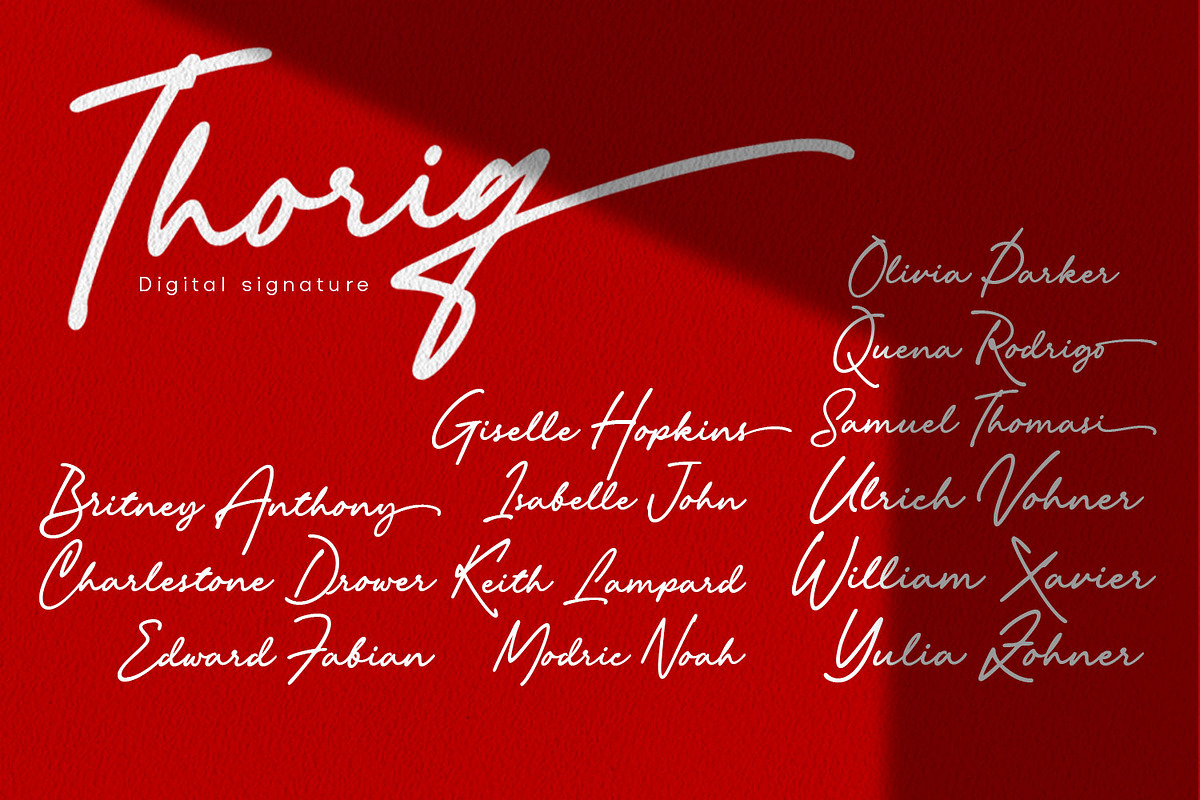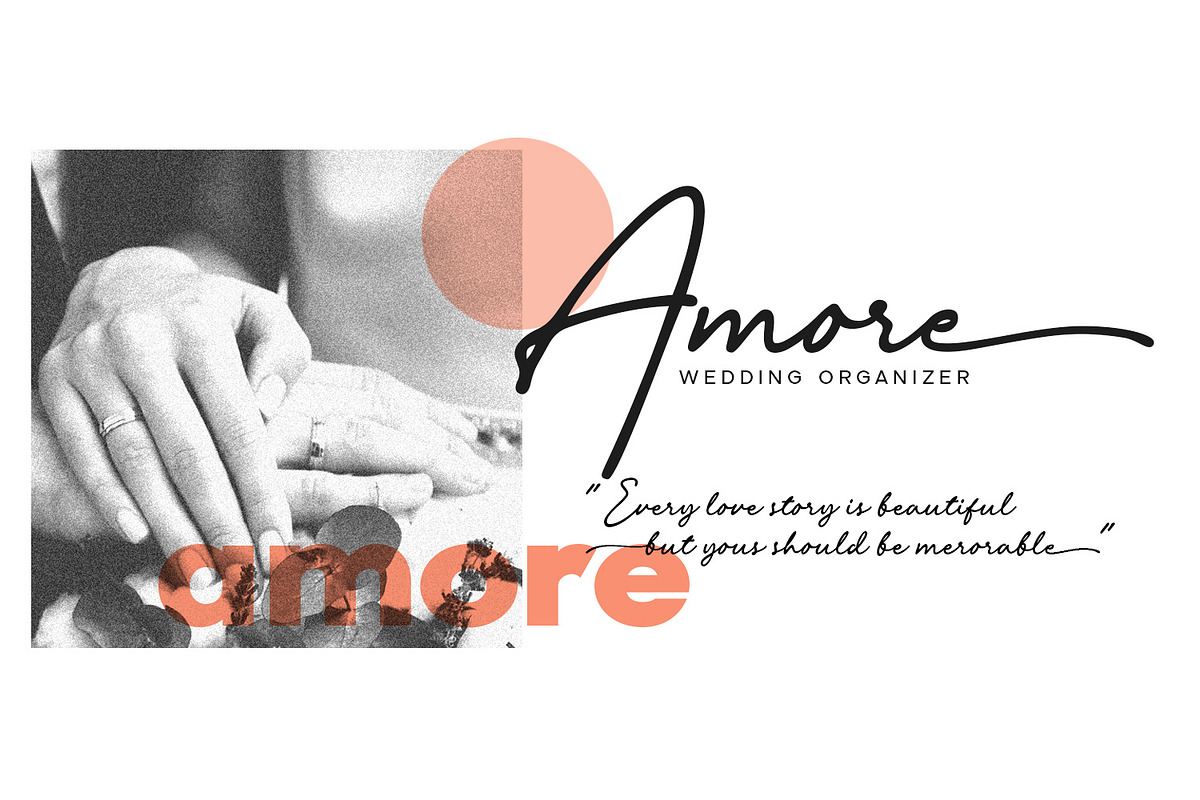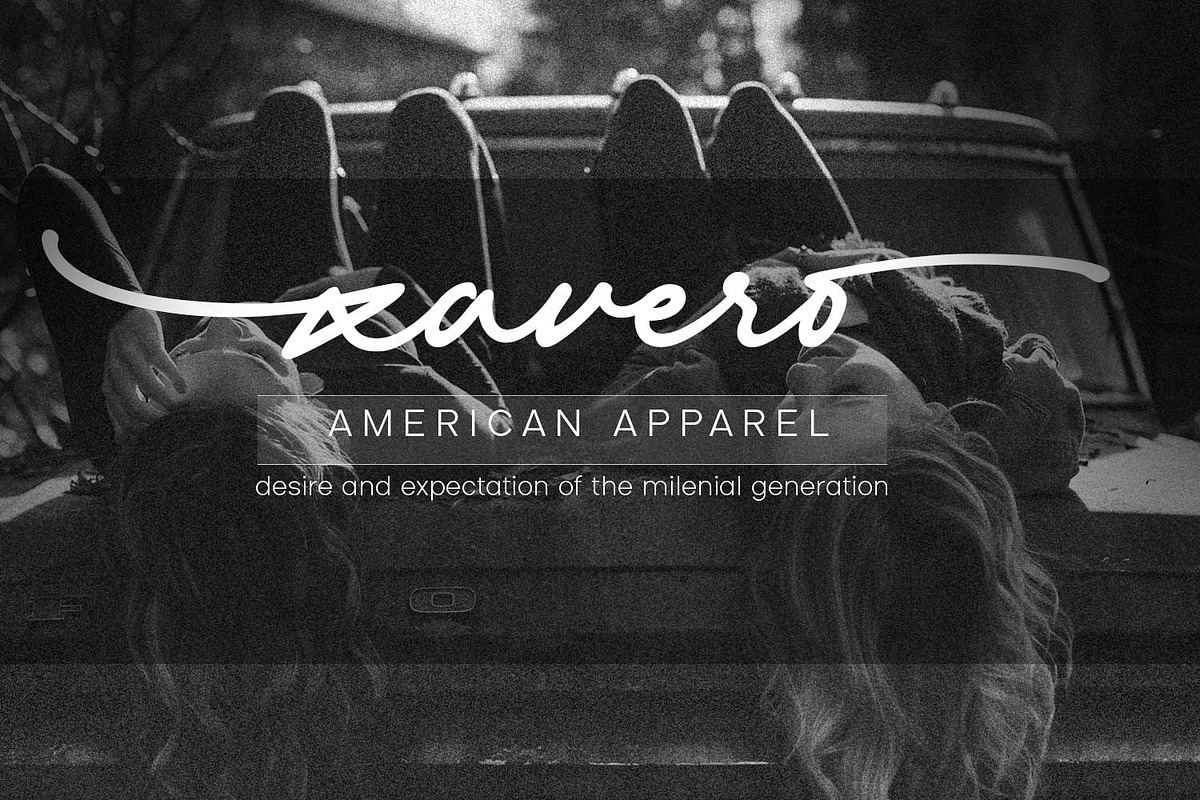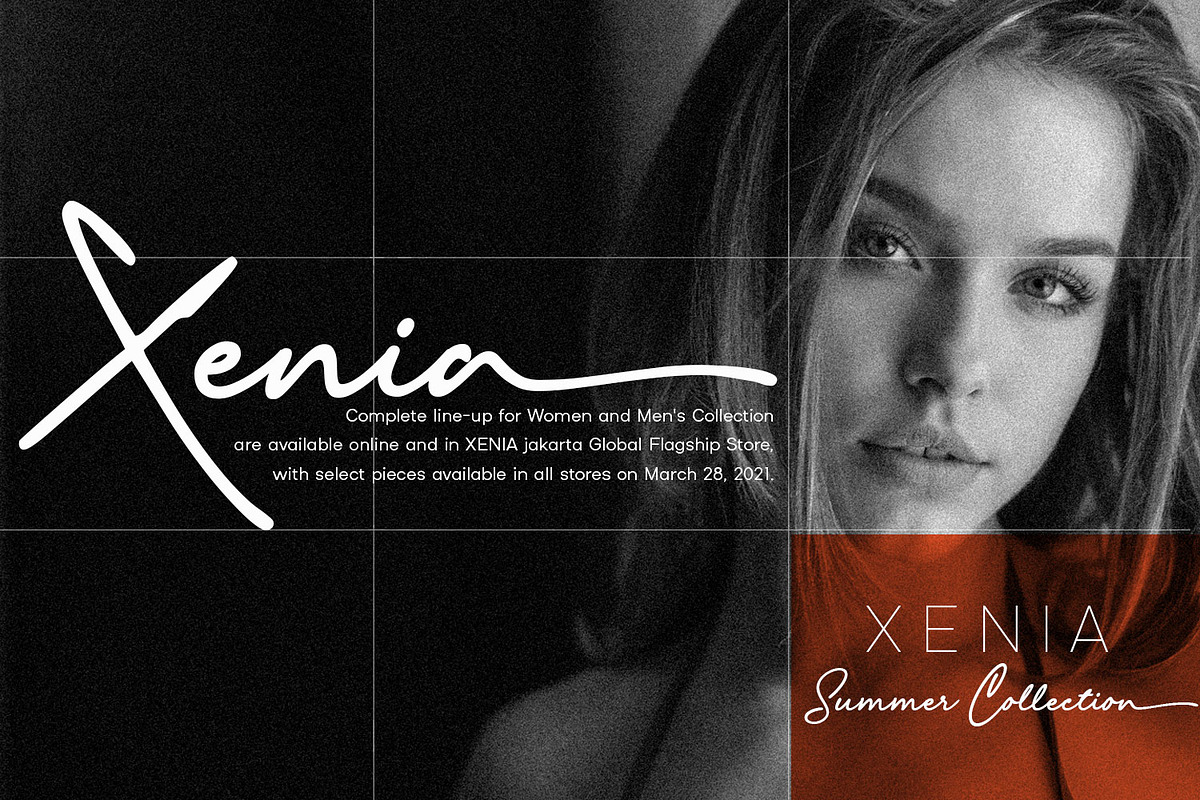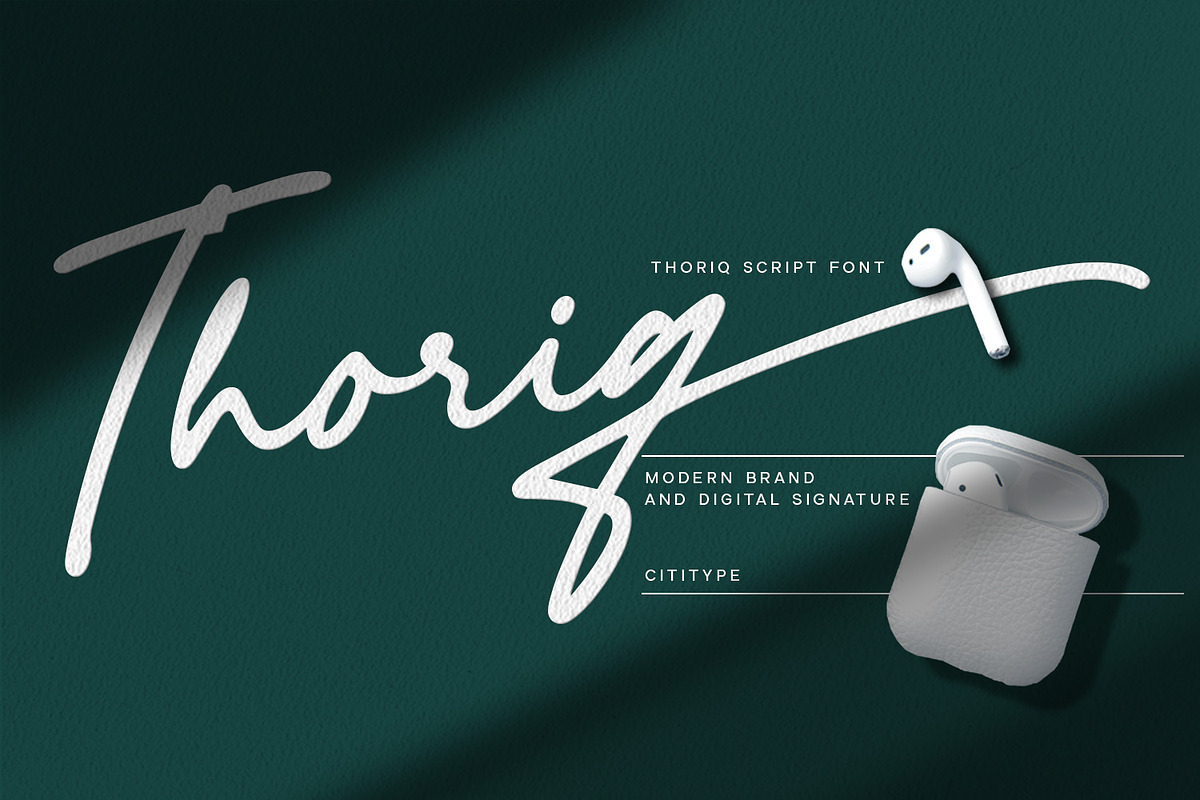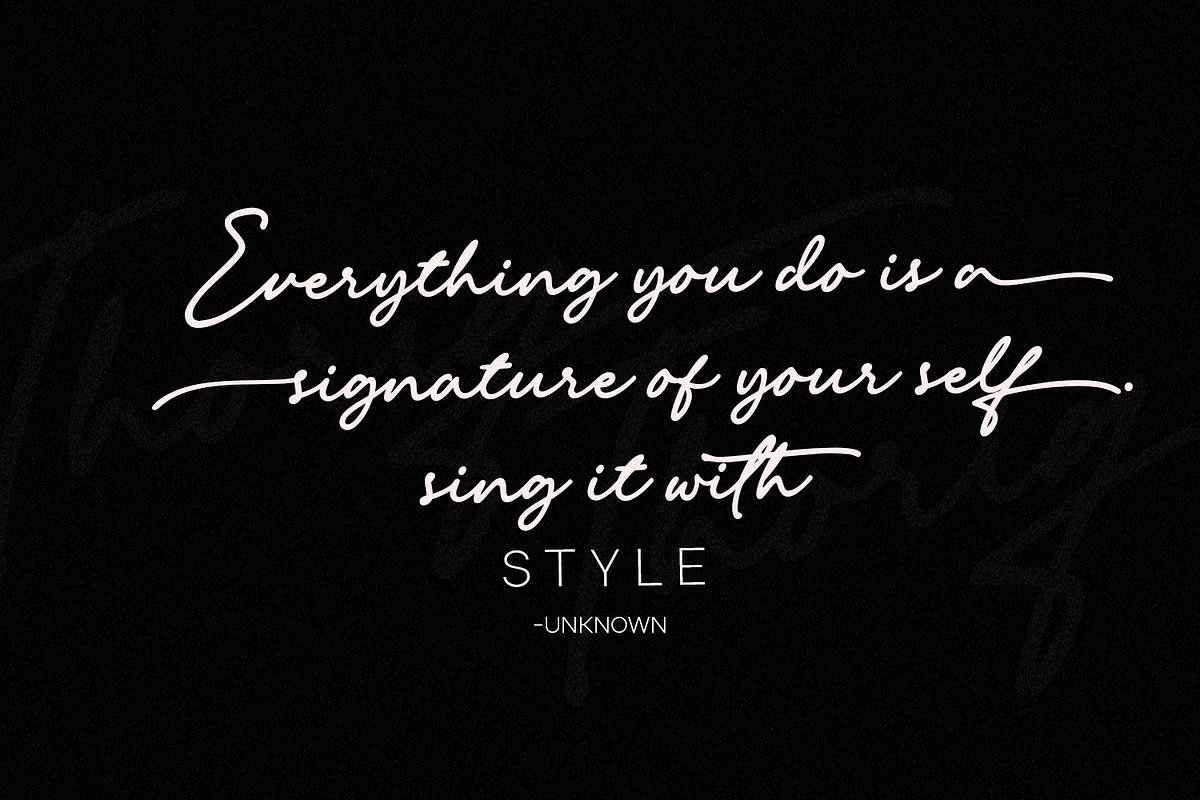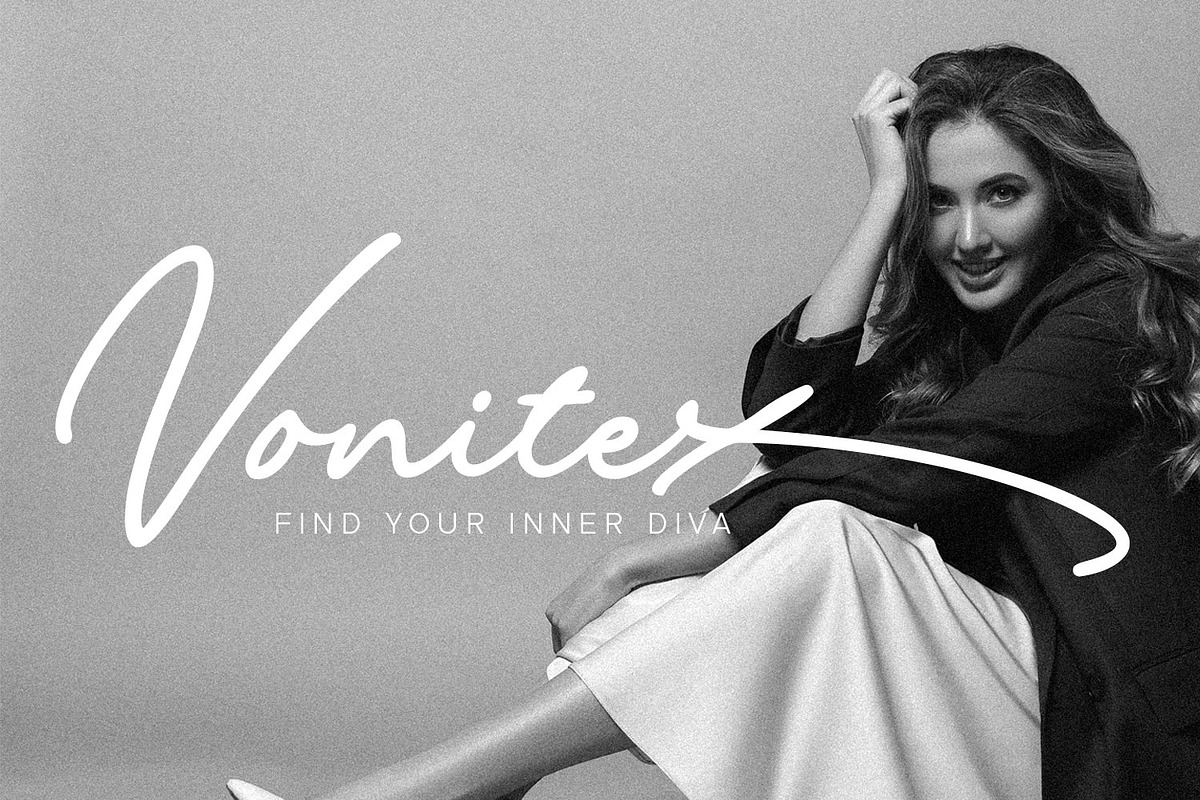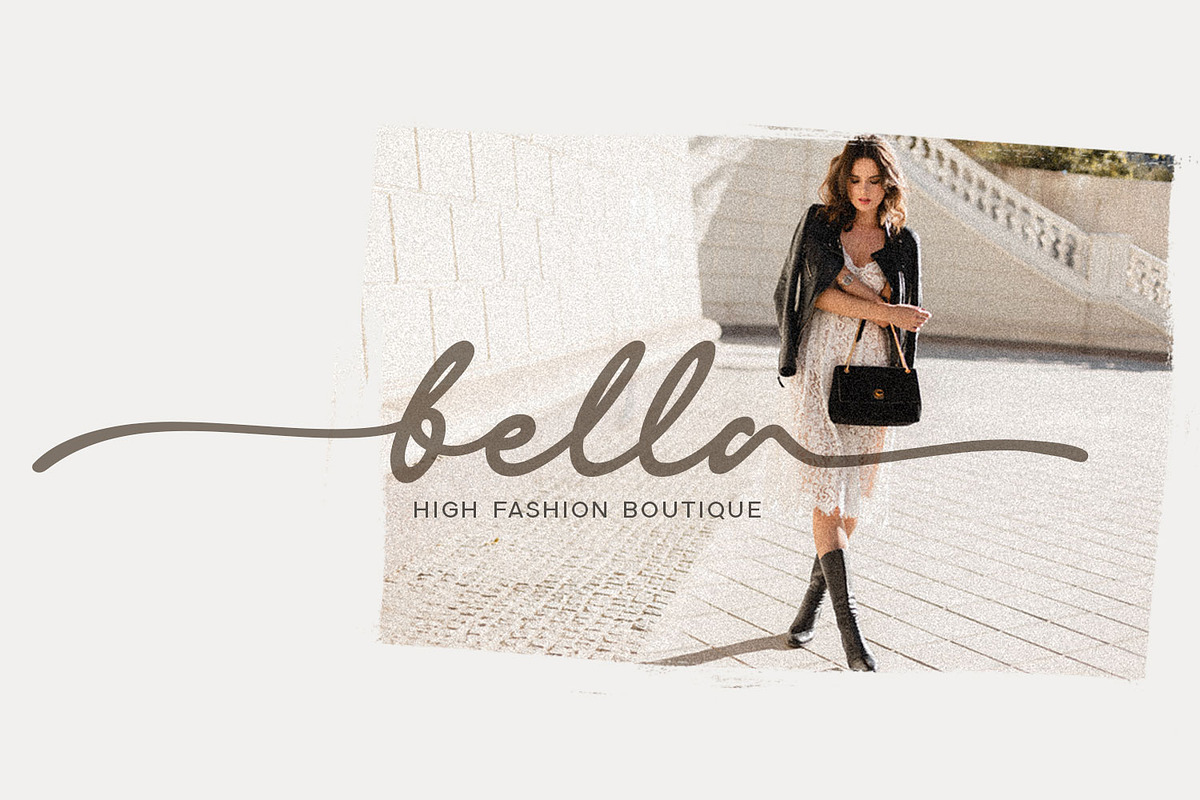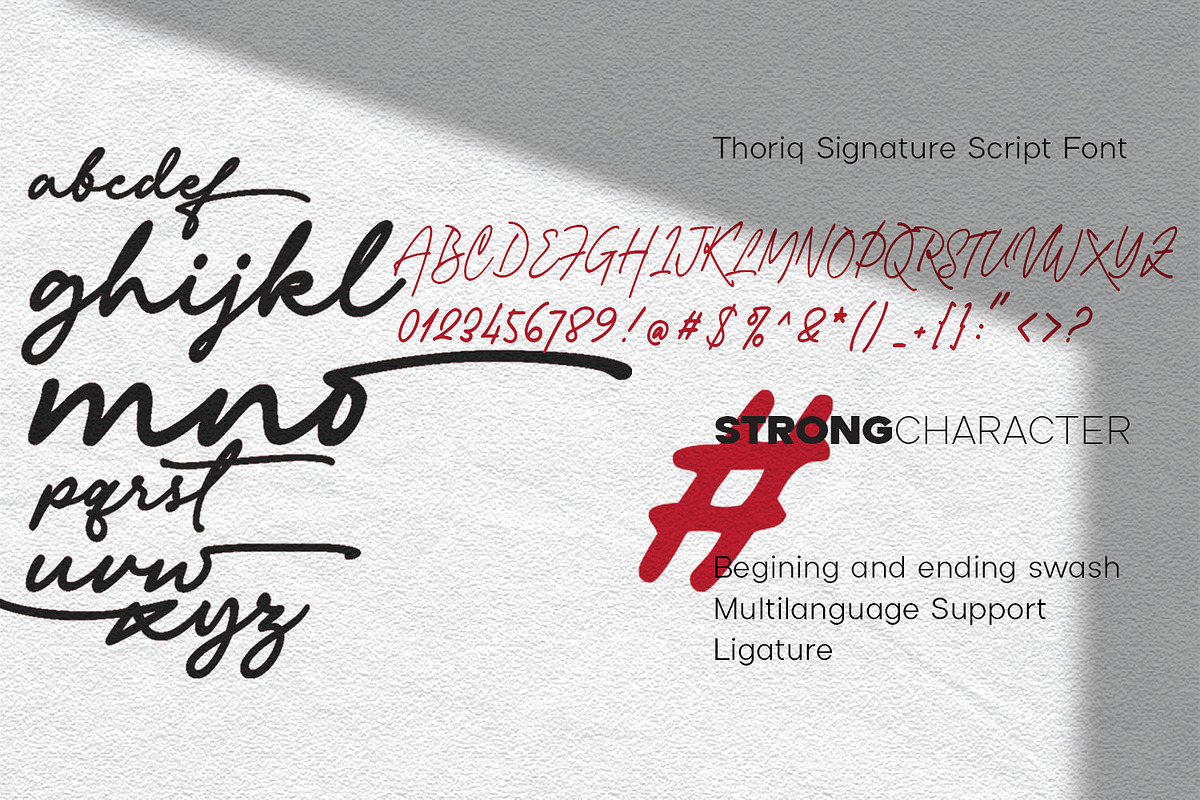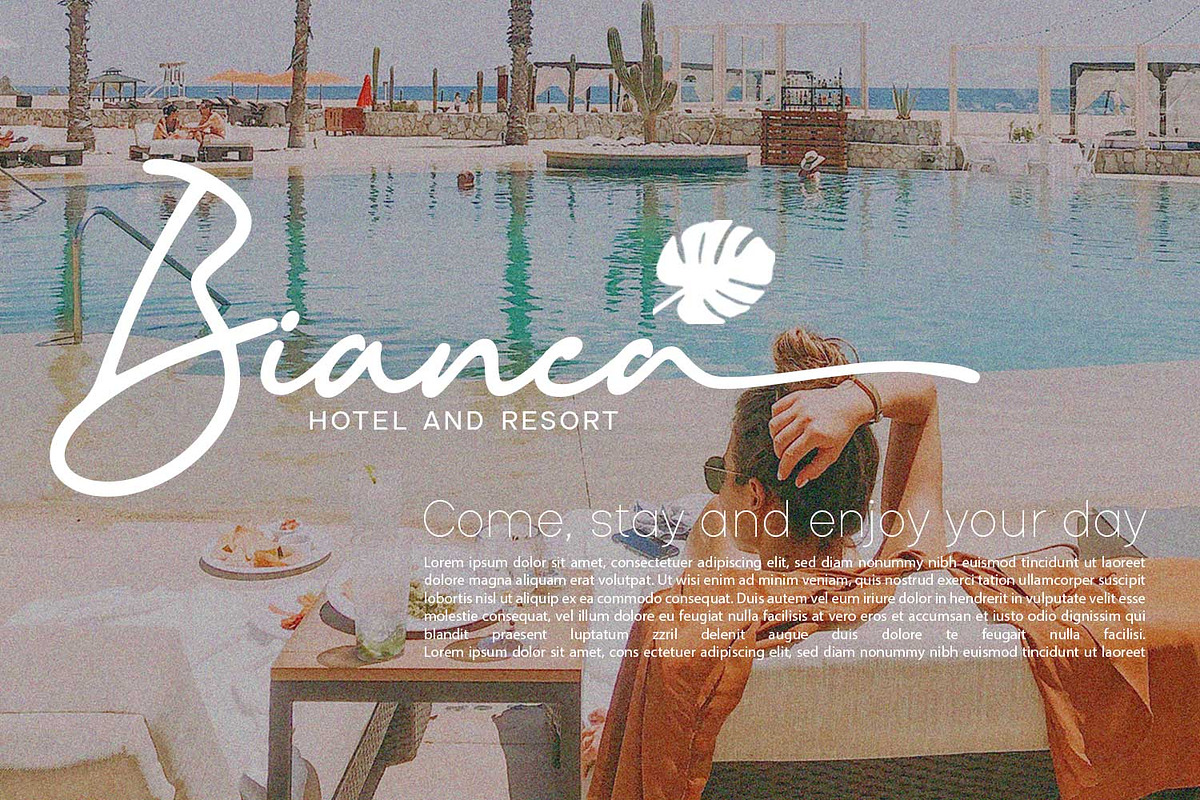
Thoriq - Digital Signature
Thoriq is a cursive and splendid handwritten font. With its unusual and exquisite look, this font is made to elevate any creative project to its best version ever!